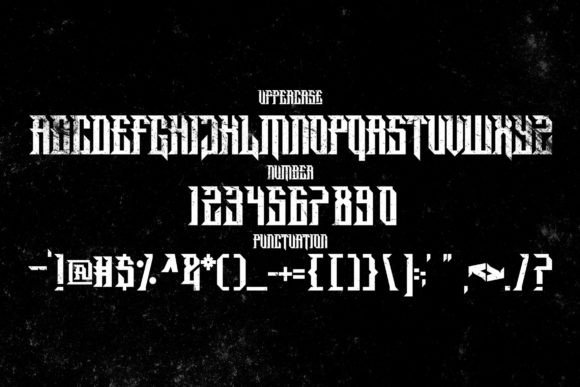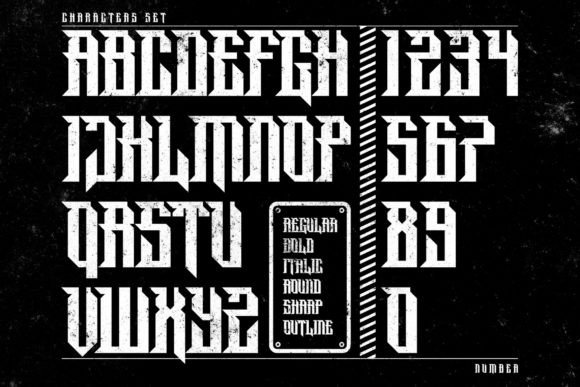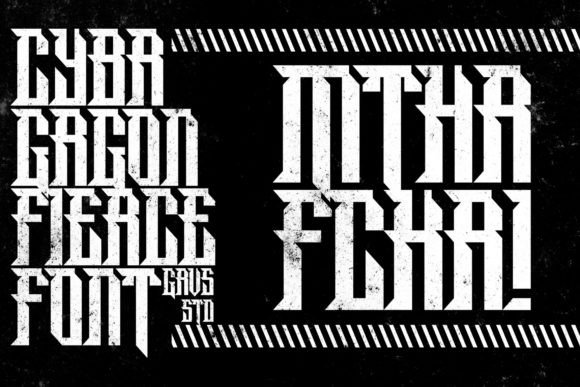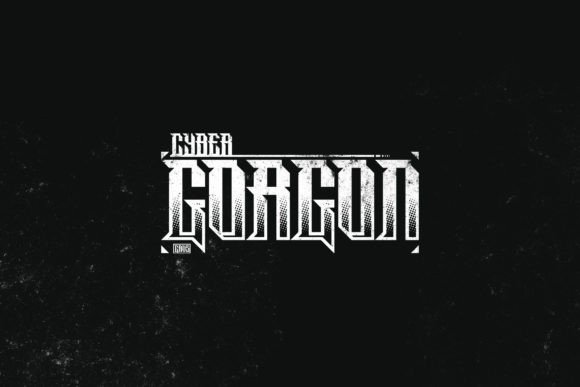
Introduction to Cyber Gorgon Font
Cyber Gorgon Font is our new item that is suitable for your team logo, or community logo with a Cyberpunk theme.
Great for Logo, Sticker, Jersey, Invitation Card, Brochures, etc .